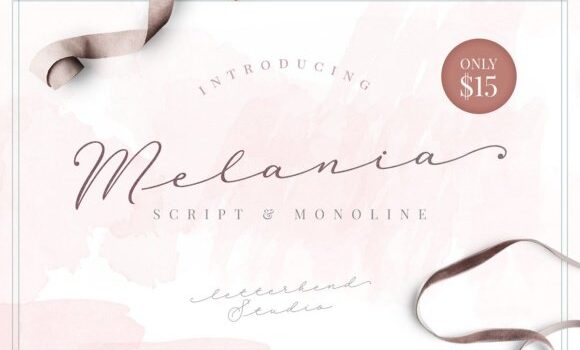
Melania Script Font – Free Download Introduction to Melania Script Font A script font that is created by natural hand writing and gives you the feminine touch that you’ve been looking for. 📸 Preview Gallery 6 images 📌 Product Name